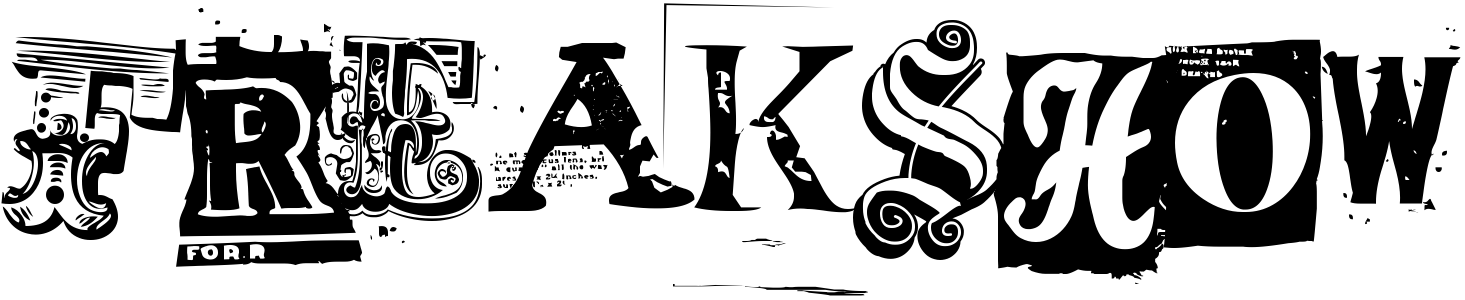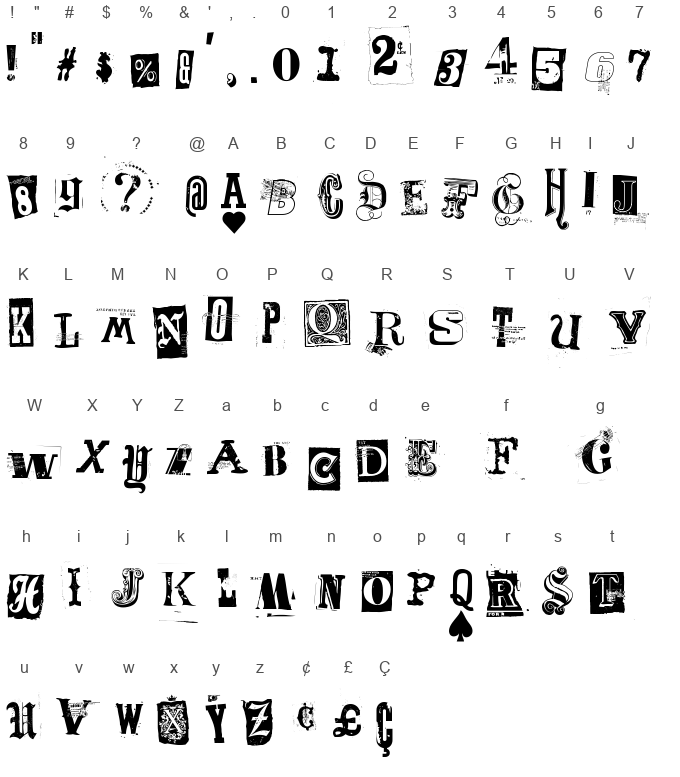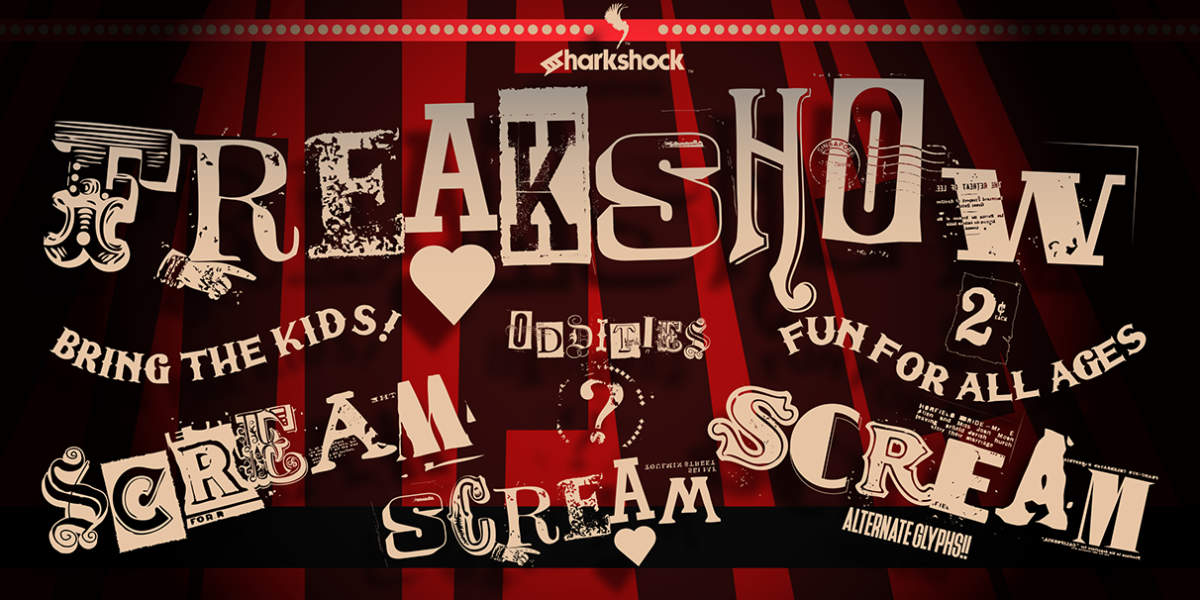
The Freakshow II font is an extremely decorative and unique typeface, classified as a grunge-trash or distorted display font. It is explicitly themed around a circus or sideshow aesthetic, making it suitable for posters or spooky advertisements. The font is an initial-caps style, meaning the main characters are uppercase, but it also includes alternate glyphs which feature various swashes and unique distress effects on the letters. The characters are irregular, appearing both square and elongated, and are marked with heavy distressing and a worn-out look.
Freakshow